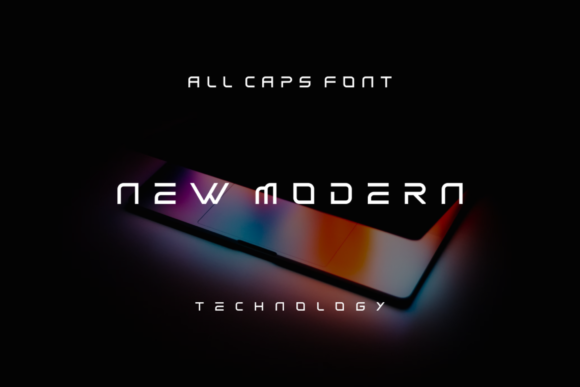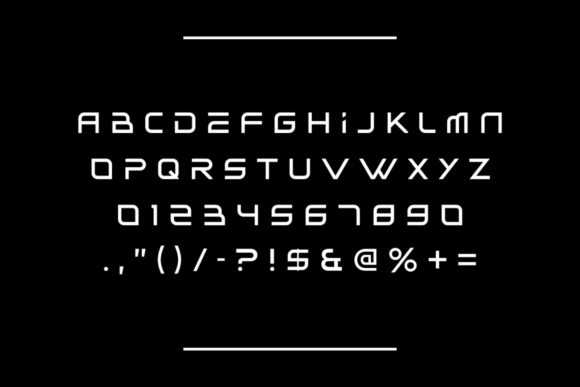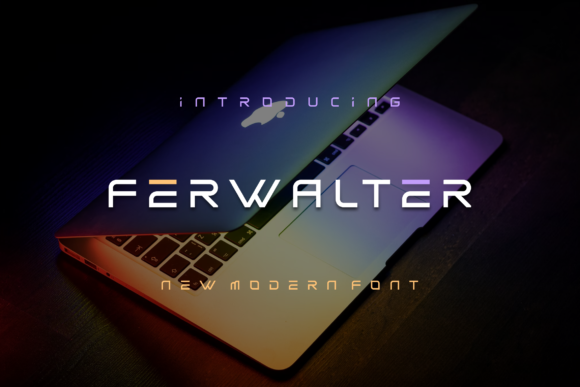
Ferwalter Font: Elevate Your Designs with a Cool and Modern Display Font
Are you tired of using the same old fonts for your designs? Look no further than Ferwalter Font, a cool and modern display font that’s perfect for adding a touch of sophistication to any project. In this article, we’ll explore the features and benefits of Ferwalter Font, and show you how to make the most of its endless possibilities.
What is Ferwalter Font?
Ferwalter Font is a stylish and contemporary display font that’s designed to make a statement. Its unique and elegant letterforms make it perfect for use on posters, flyers, prints, and any other design project where you want to grab attention. Whether you’re a designer, craftsperson, or DIY enthusiast, Ferwalter Font is a versatile and easy-to-use font that’s sure to become a favorite.
Key Features of Ferwalter Font
- Modern and sleek design: Ferwalter Font boasts a clean and modern design that’s perfect for creating stunning visual effects.
- Highly legible: Despite its stylish and artistic design, Ferwalter Font remains highly legible, making it perfect for use on a wide range of design projects.
- Endless possibilities: With Ferwalter Font, you can create a wide range of designs, from elegant and sophisticated to bold and eye-catching.
How to Use Ferwalter Font
- Pair it with other fonts: Ferwalter Font pairs well with a wide range of other fonts, making it easy to create unique and interesting combinations.
- Experiment with different sizes and colors: Ferwalter Font looks great in a wide range of sizes and colors, so don’t be afraid to experiment and find the perfect combination for your design.
- Use it for headlines and titles: Ferwalter Font is perfect for use on headlines and titles, where its bold and eye-catching design can really make an impact.
Benefits of Using Ferwalter Font
So why choose Ferwalter Font for your designs? Here are just a few benefits of using this amazing font:
- Add a touch of sophistication: Ferwalter Font adds a touch of elegance and sophistication to any design, making it perfect for projects where you want to create a lasting impression.
- Stand out from the crowd: With its unique and stylish design, Ferwalter Font helps your designs stand out from the crowd and grab attention.
Tips and Tricks for Getting the Most Out of Ferwalter Font
- Use it for branding and advertising: Ferwalter Font is perfect for use in branding and advertising, where its bold and eye-catching design can help grab attention and create a lasting impression.
- Experiment with different effects: Ferwalter Font looks great with a wide range of effects, from subtle shadows and gradients to bold and dramatic effects.
- Use it for crafting and DIY projects: Ferwalter Font is perfect for use on crafting and DIY projects, such as handmade cards, invitations, and decorations.
In conclusion, Ferwalter Font is a cool and modern display font that’s perfect for adding a touch of sophistication to any design project. With its unique and elegant letterforms, highly legible design, and endless possibilities, Ferwalter Font is a versatile and easy-to-use font that’s sure to become a favorite among designers and crafters. So why wait? Download Ferwalter Font today and start creating stunning designs that grab attention and leave a lasting impression.